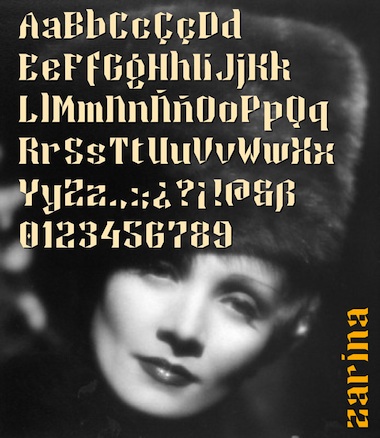
Very beautiful. Lots of ingenious solutions for some of those more reluctant glyphs. The a and e are particularly successful.
I concur...some really good stuff here.
WOOOOWWW!!! Beautiful! Very reflective of intaglio's work. I love the Zz and Gg especially (but I like every letter).
10.00001/10
Robust letters with heavy strokes. Some of them are a bit irregular, others show vague resemblance to ultra bold blackletters. I particularly like the numbers, but there are so many beautiful solutions it's hard to enumerate them all. 10/10
Yes, I agree with xenophilius: intaglio's influence is almost palpable (which is great!).
A dash of inti and a pinch of will.i. All you.
love that g
Original design and very nice output, what can I say other than Bravo mon ami :)
g r 3 4 T !!!
(great)